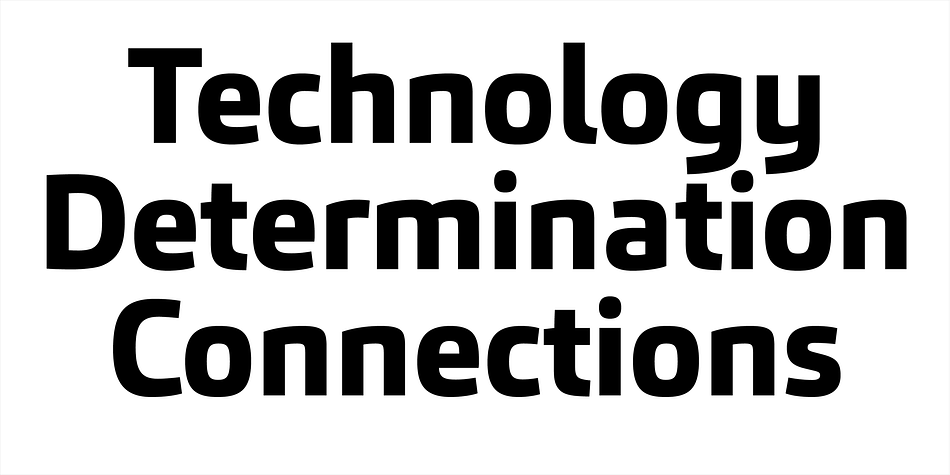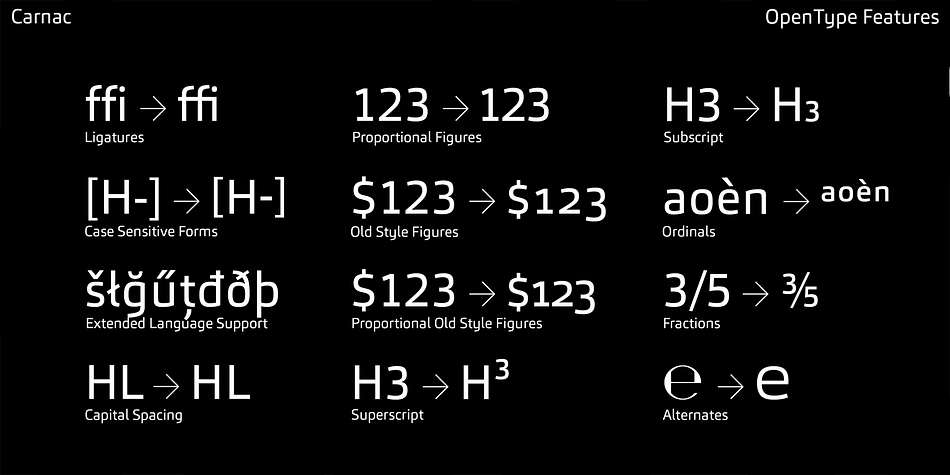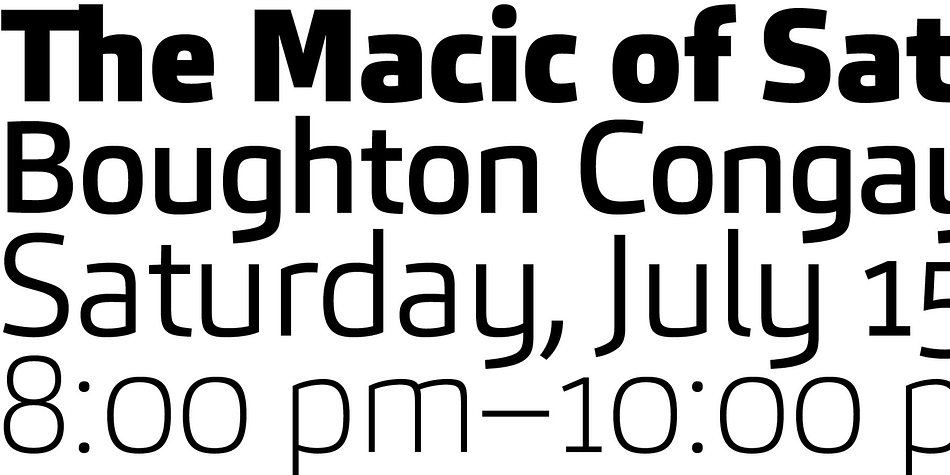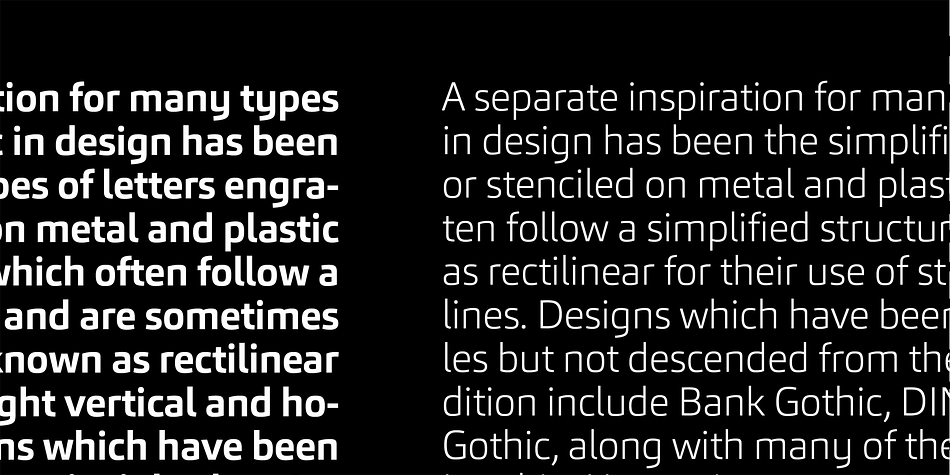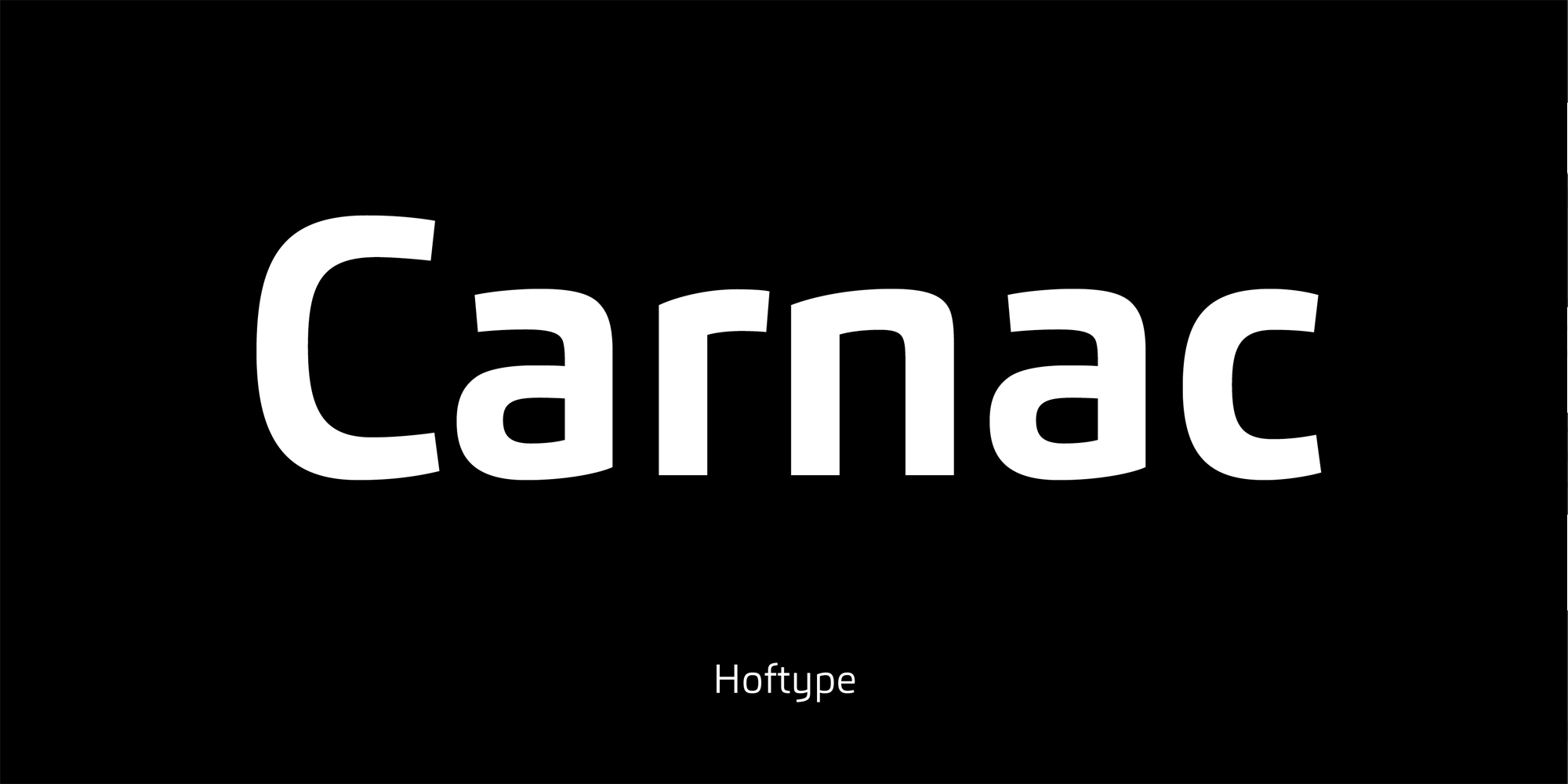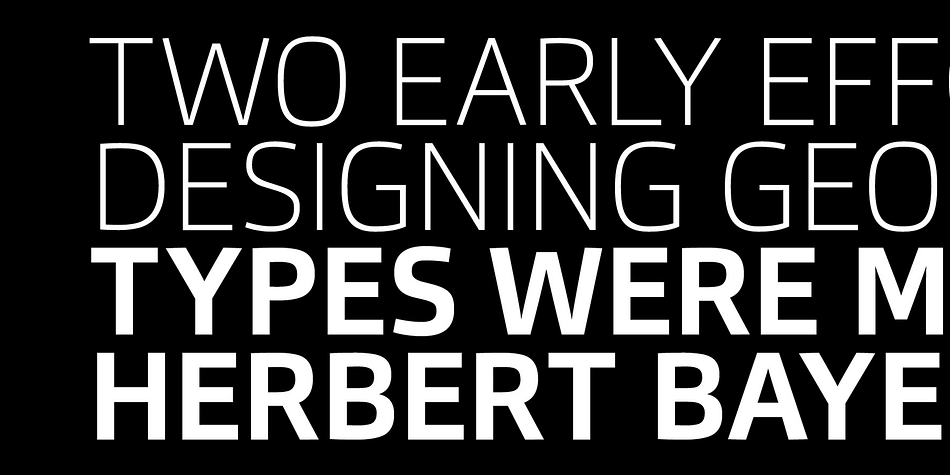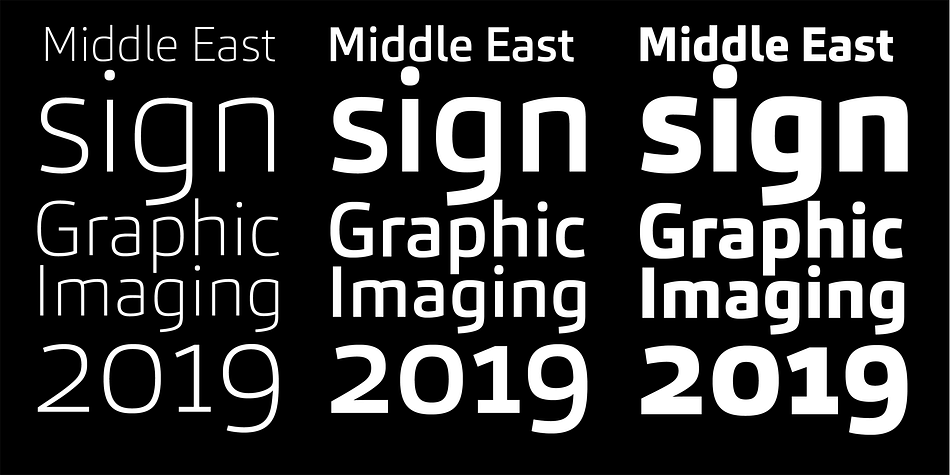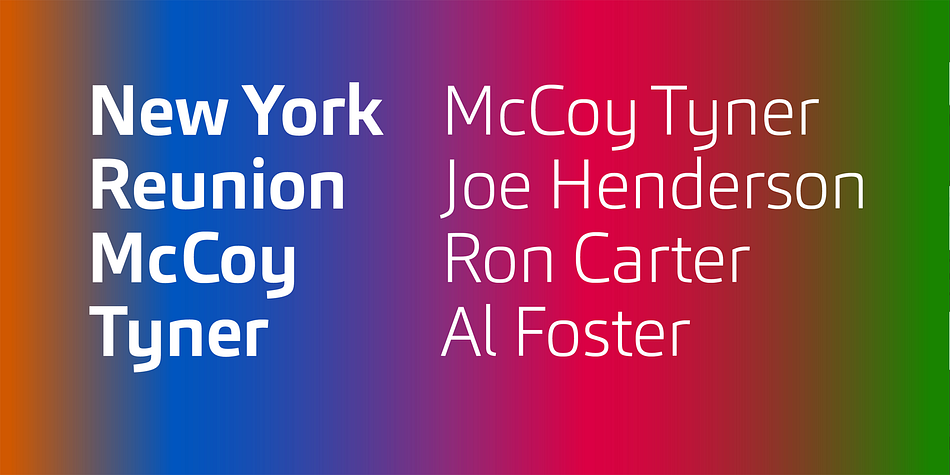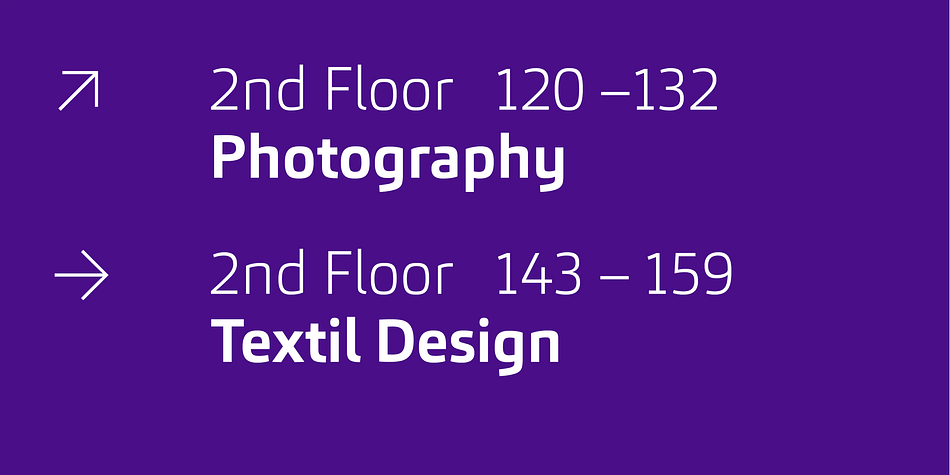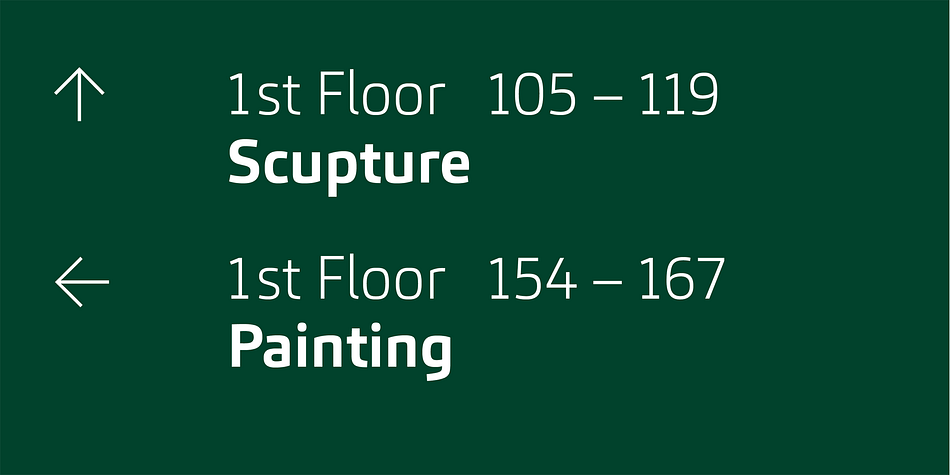
Designed by Dieter Hofrichter, Carnac is a sans serif font family. This typeface has sixteen styles and was published by Hoftype.
Carnac, a minimalistic monoline face follows the same linear structure as its earlier released, rounded counterpart Carnas. Carnac, however, appears crisp and fresh because of its squared edges and angular contours. It is a clean, contemporary face with a wide range of styles from Thin to Black. Designed to be ideal for shorter and longer text applications and also for headlines and signage.
The Carnac family consists of 16 styles and is well suited for ambitious typography. It comes in OpenType format with extended language support. All weights contain ligatures, superior characters, proportional lining figures, tabular lining figures, proportional old style figures, lining old style figures, matching currency symbols, fraction- and scientific numerals and matching arrows.